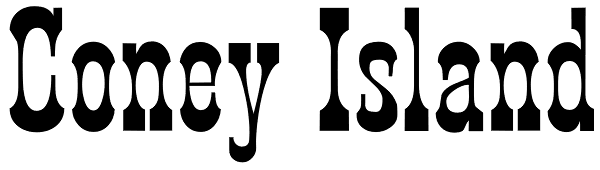
Coney Island
This is based on a mid-Victorian Connor's foundry font originally known as Manhattan. One of several old faces known in America as "French Clarendons", in Europe as "Italians", and, wait for it, in France as "American".